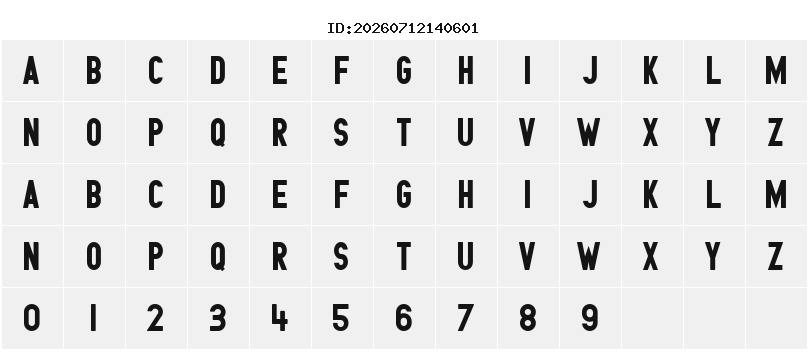
RealMadrid2009 Preview
About RealMadrid2009.ttf
RealMadrid2009.ttf is a modern, elegant sans-serif font designed for ultimate readability and visual harmony. Perfect for branding, headlines, web design, and print materials.